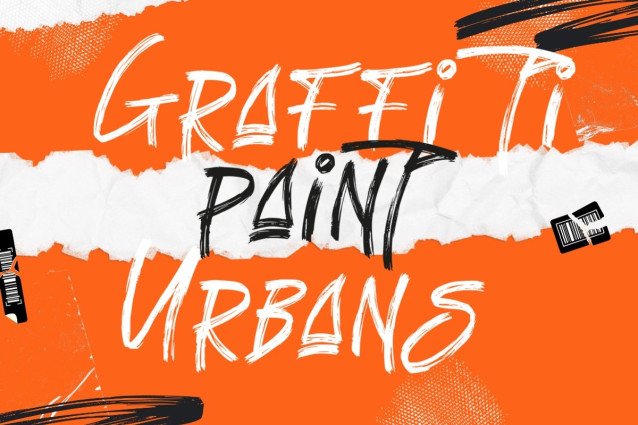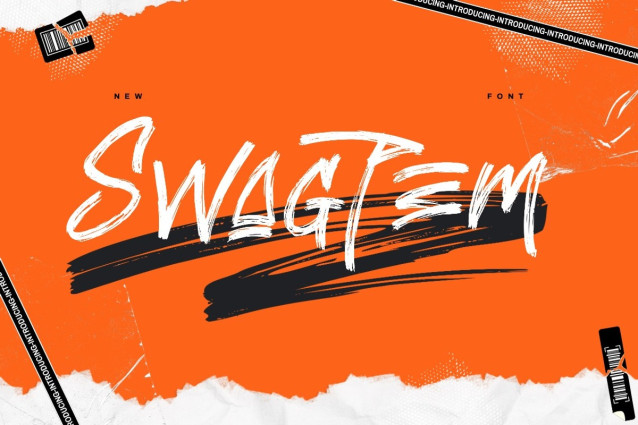
Swagtem Brush Font
Swagtem Brush Font – Dry Brush Font which has a hand lettering brush style. So it looks natural like a handmade. This texture is very detailed. This font is suitable for logos, product branding, printable templates or for text overlay to any background image, also suitable for use in title design. Such as apparel, invitations, books tittle, stationery design, quotes, branding, greeting card, t-shirt, packaging design, poster and more.